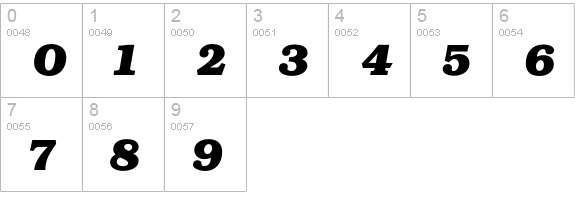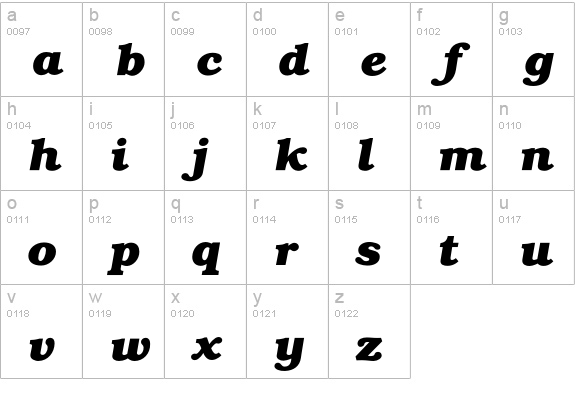
BookmanBoldItalic Font Details
BookmanBoldItalic is a timeless and versatile font that combines the classic elegance of Bookman with a bold and dynamic italic style. This typeface exudes sophistication and charm, making it perfect for a wide range of design projects. From book covers to invitations, this font adds a touch of refinement to any text. What's even better is that BookmanBoldItalic is available for free download at FontsMarket.com. This means you can easily access this beautiful font and use it in your creations without any cost. Don't miss out on the opportunity to enhance your designs with this stunning typeface today!